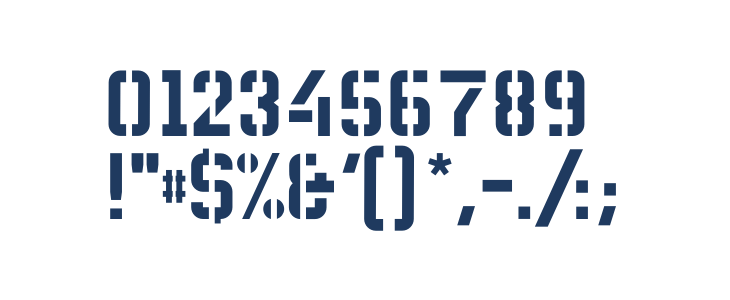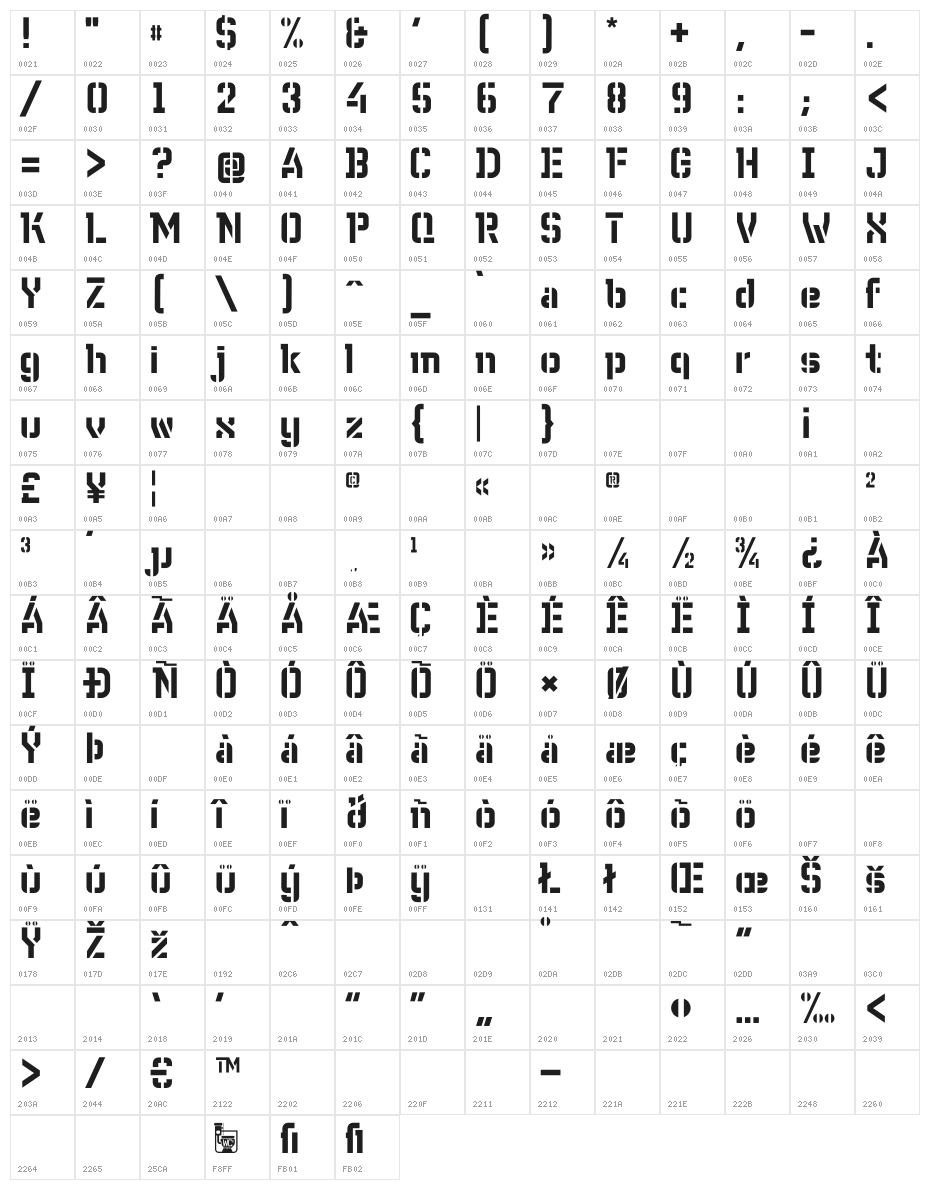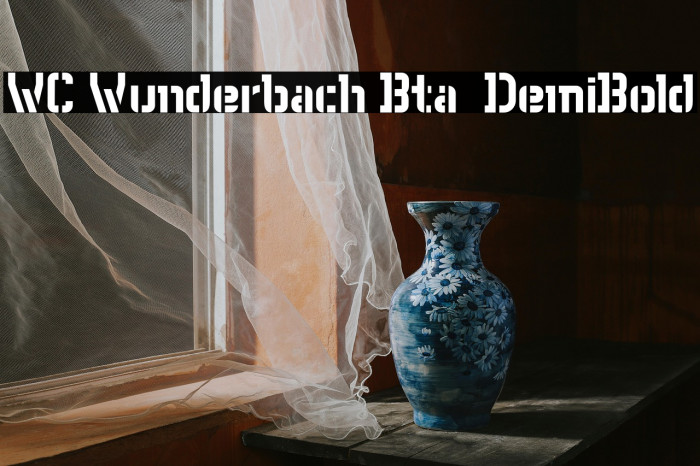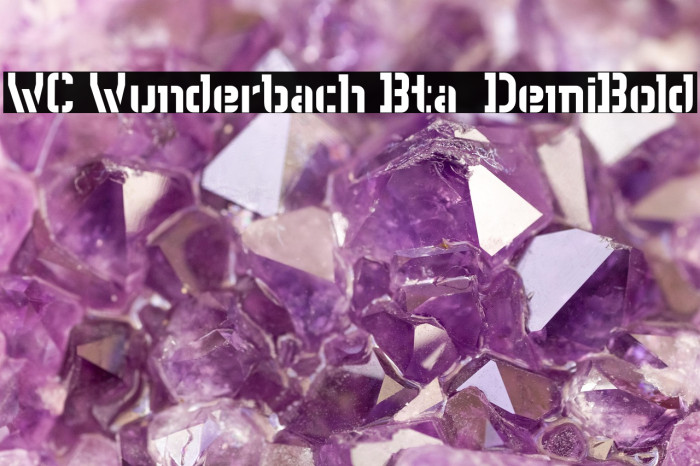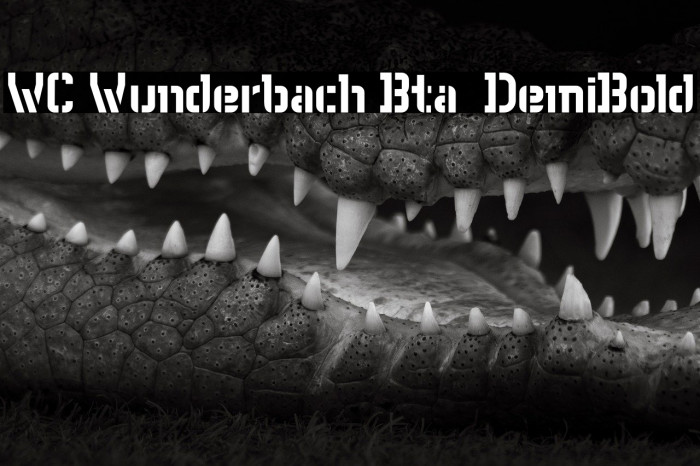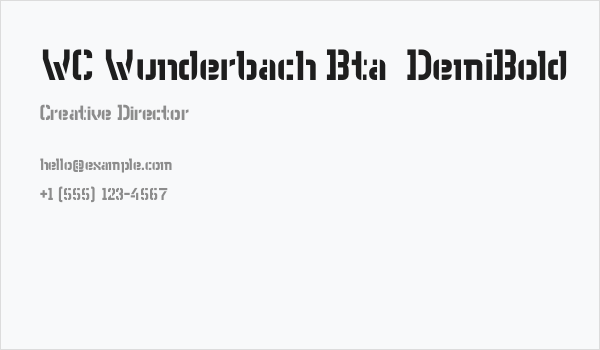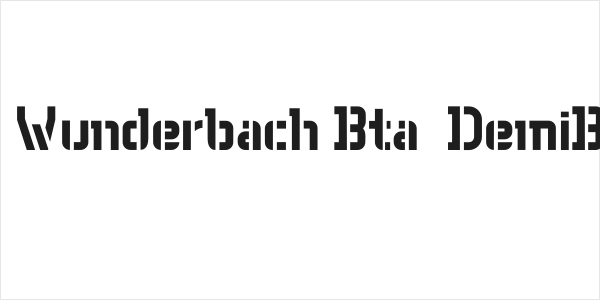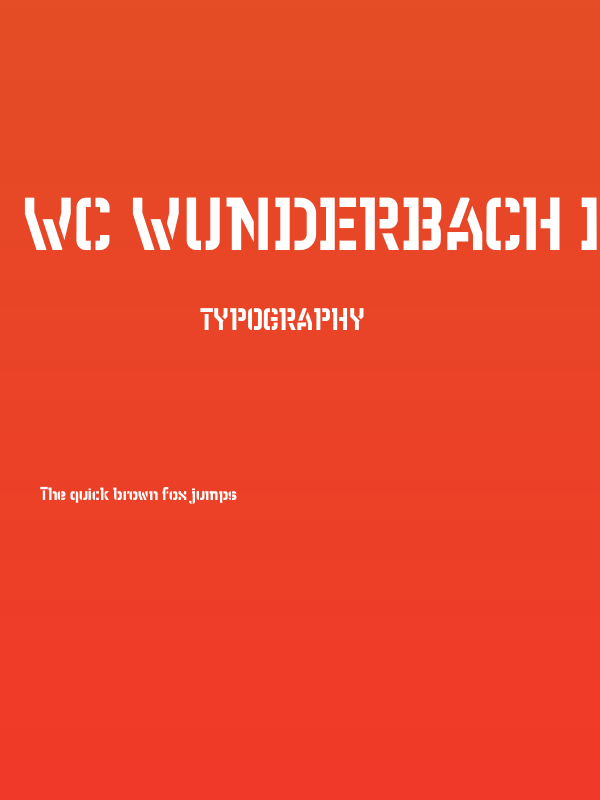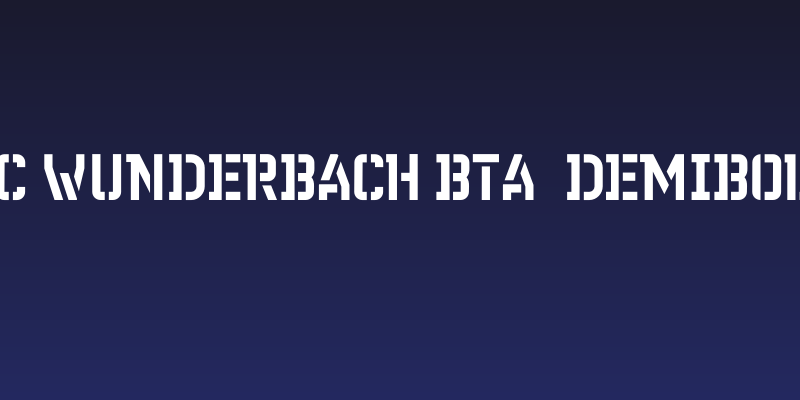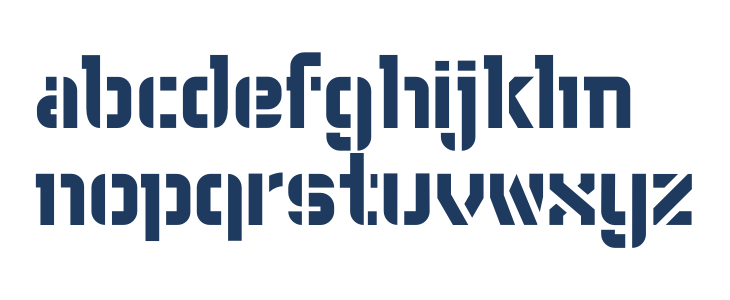
WC Wunderbach Bta DemiBold Font
WC Wunderbach Bta DemiBold Description
This font features a bold, geometric design with a stencil-like appearance. The characters are constructed with strong, angular lines and distinct cut-out sections, giving it a modern and industrial feel. The uppercase and lowercase letters maintain a consistent style, with a uniform width and height that enhances readability. Numbers and special characters follow the same design principles, ensuring a cohesive look across all elements. The font's unique style makes it suitable for projects that require a strong visual impact.